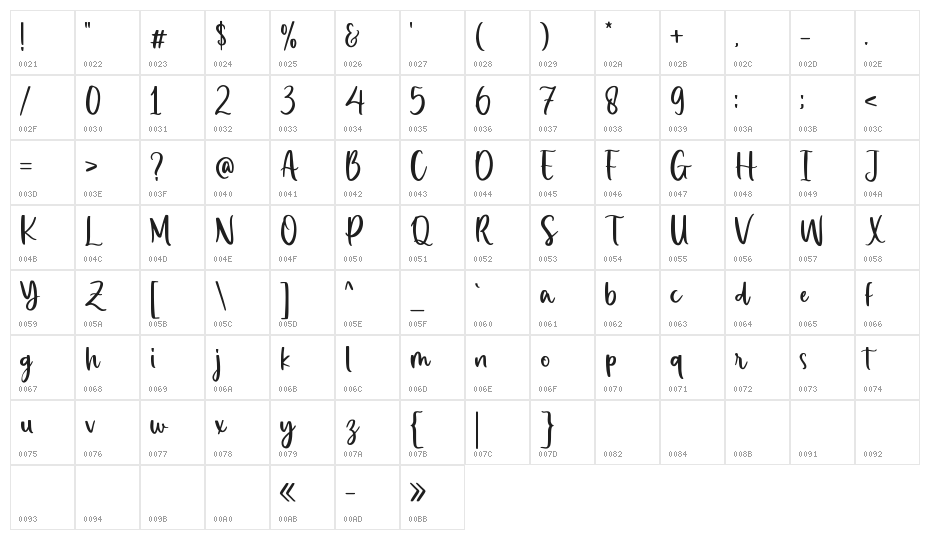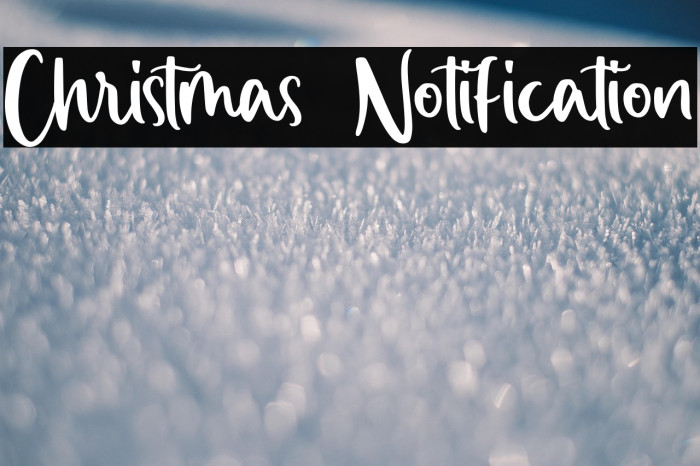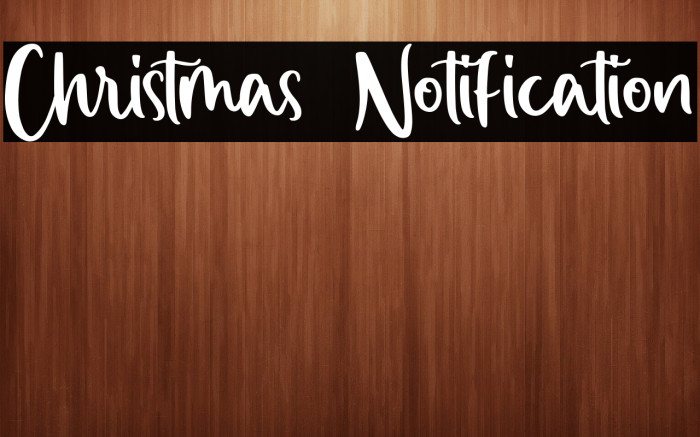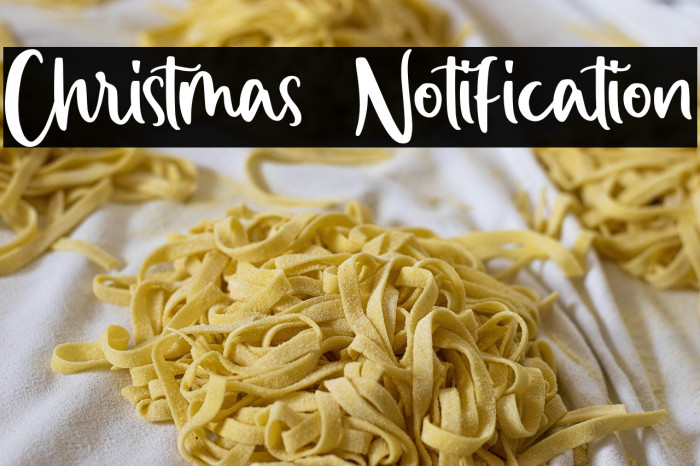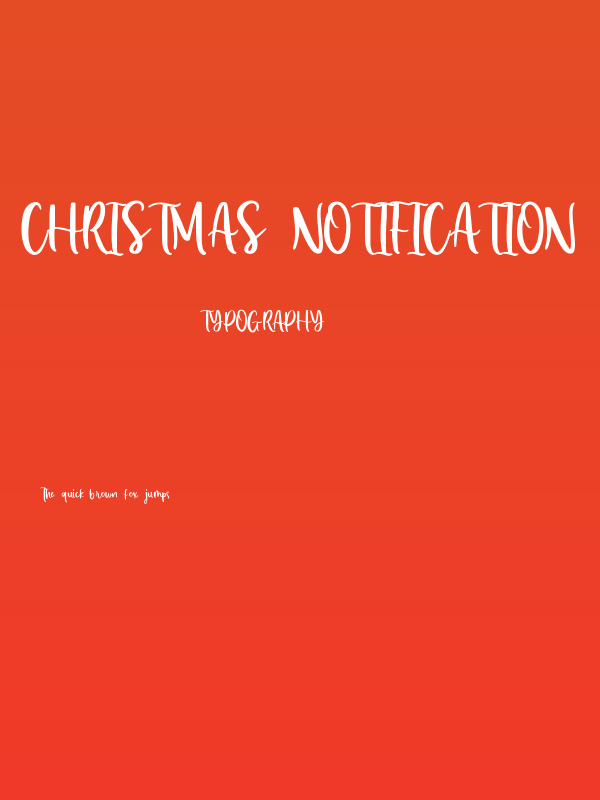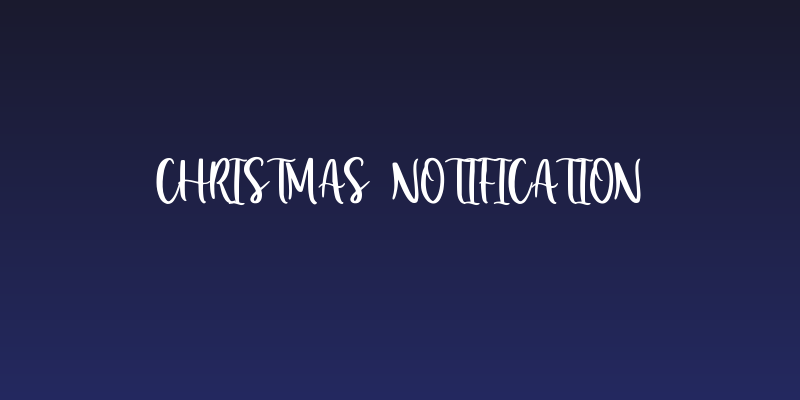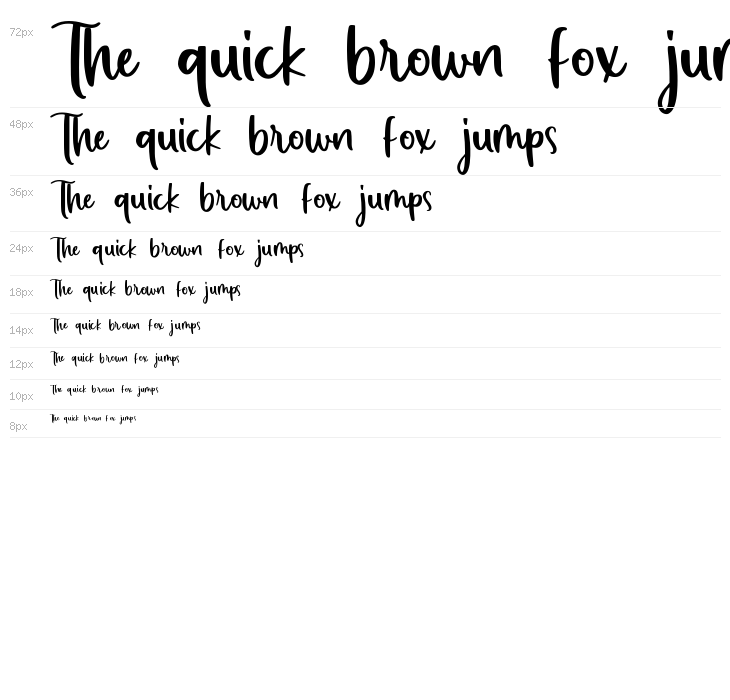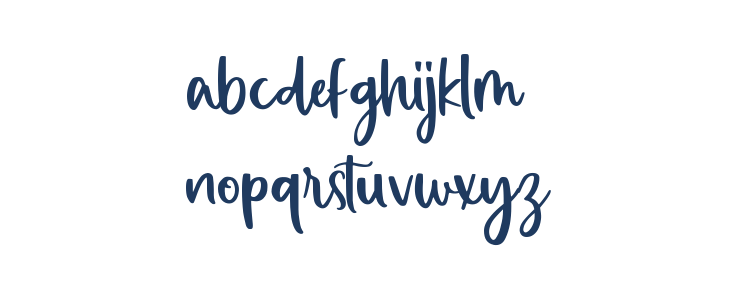
Christmas Notification Font
Christmas Notification Description
This font features a playful and whimsical handwritten style, characterized by its flowing, cursive-like strokes. The letters are bold and expressive, with a slight slant that adds to their dynamic appearance. The uppercase letters are tall and slightly narrow, while the lowercase letters maintain a consistent height, creating a harmonious balance. The numbers are equally playful, with a consistent thickness that complements the overall style. Special characters are creatively integrated, maintaining the font's lively and festive feel. This font is perfect for adding a personal touch to any project, with its unique blend of elegance and fun.